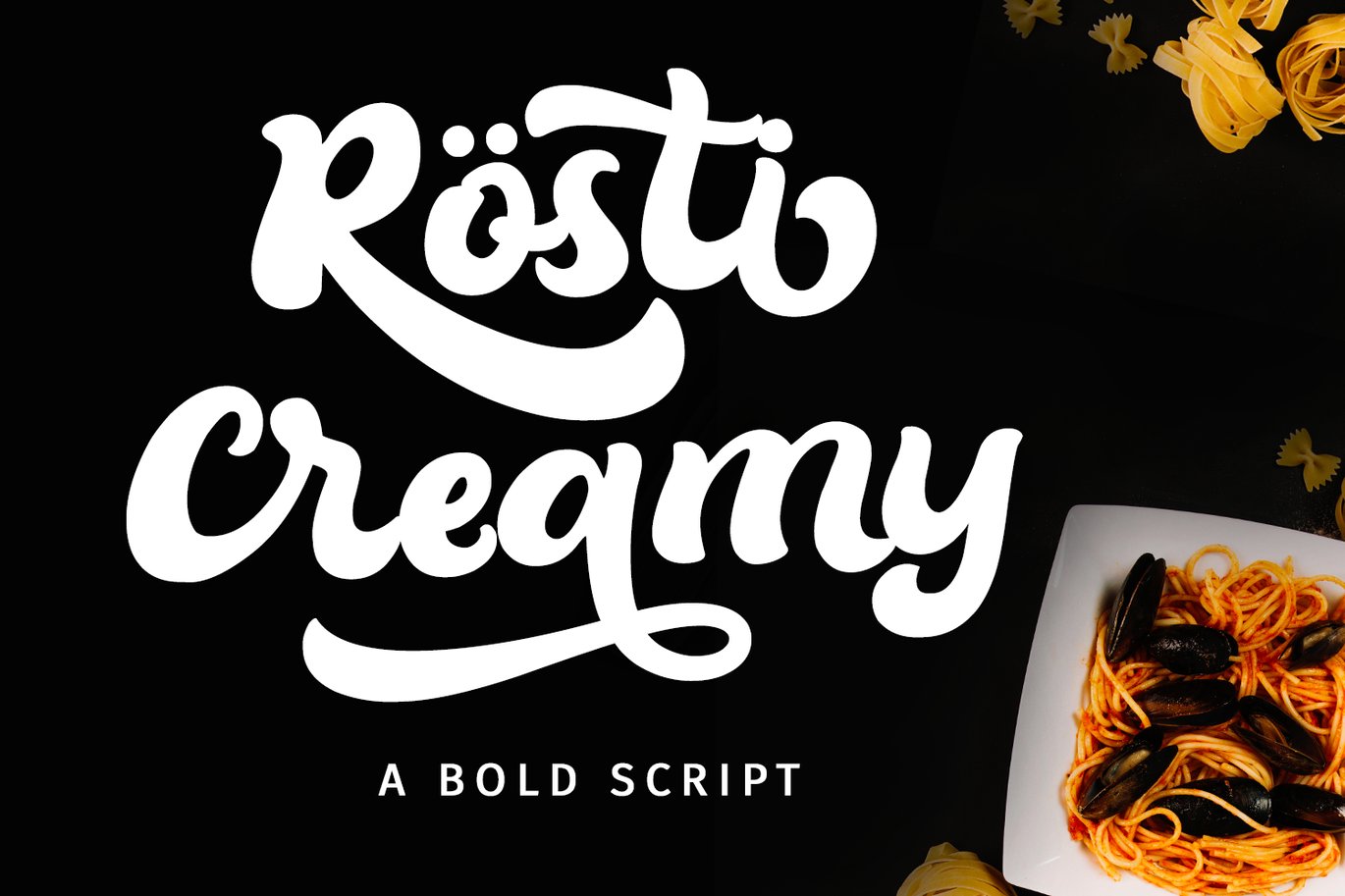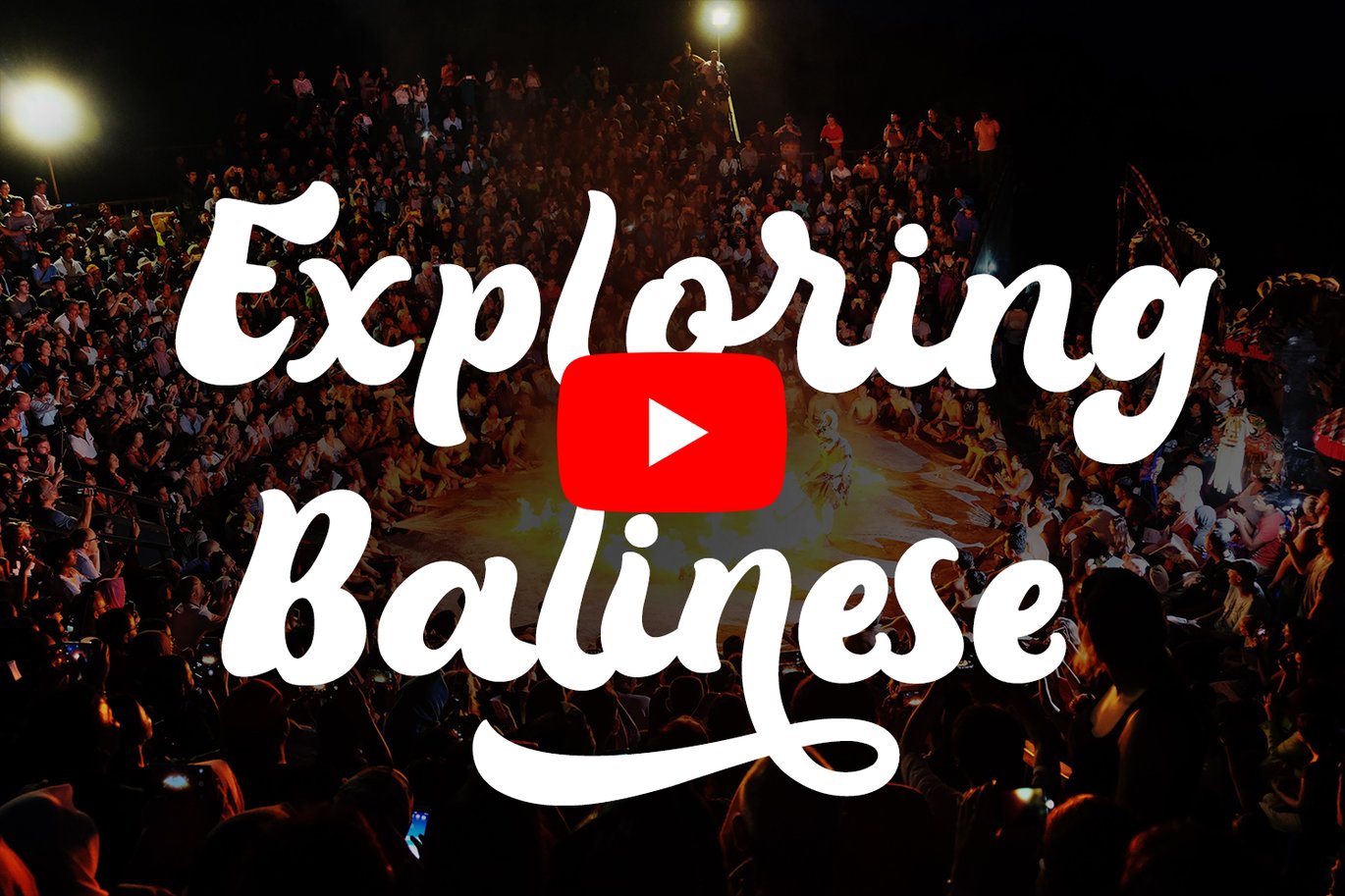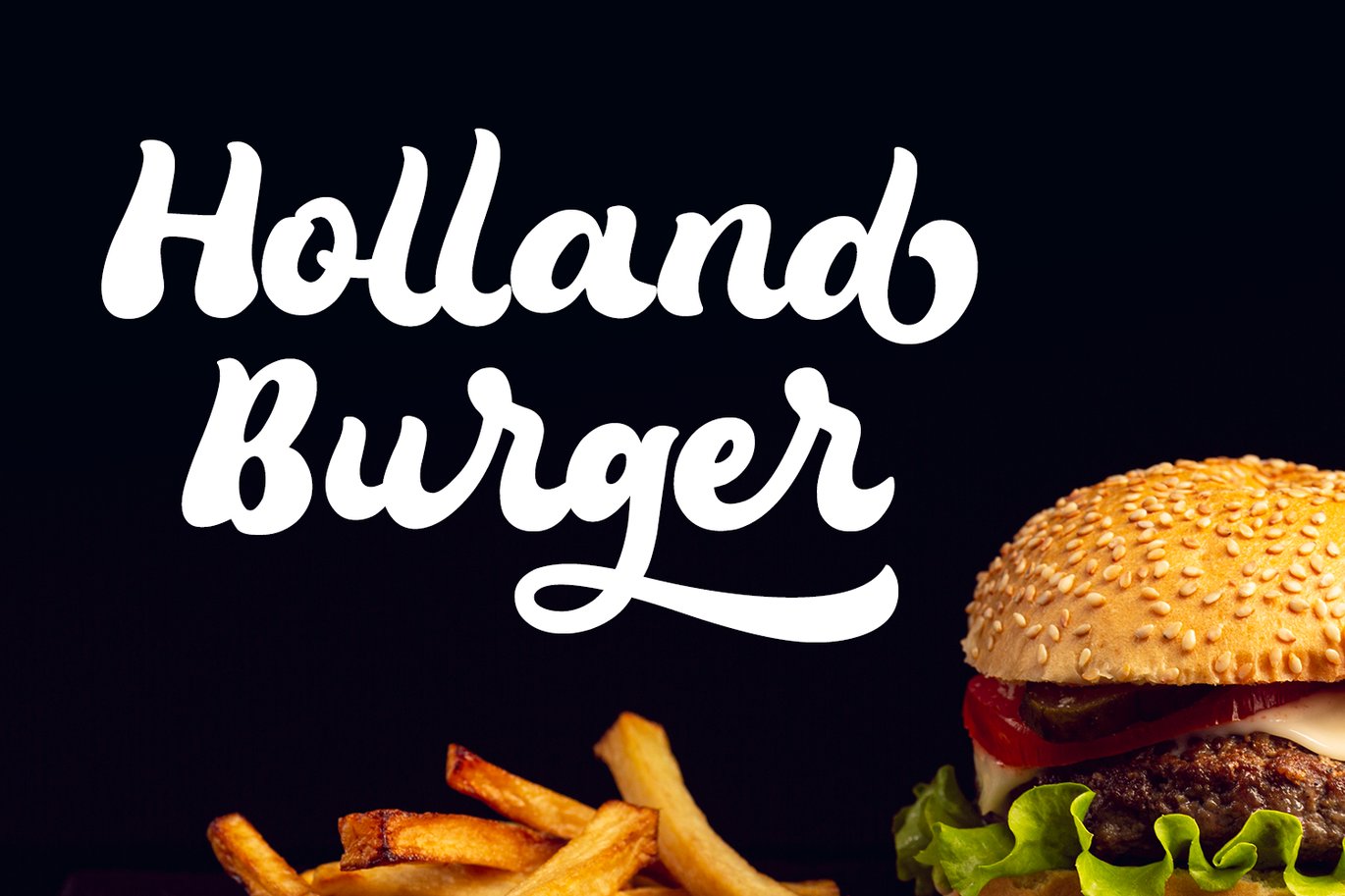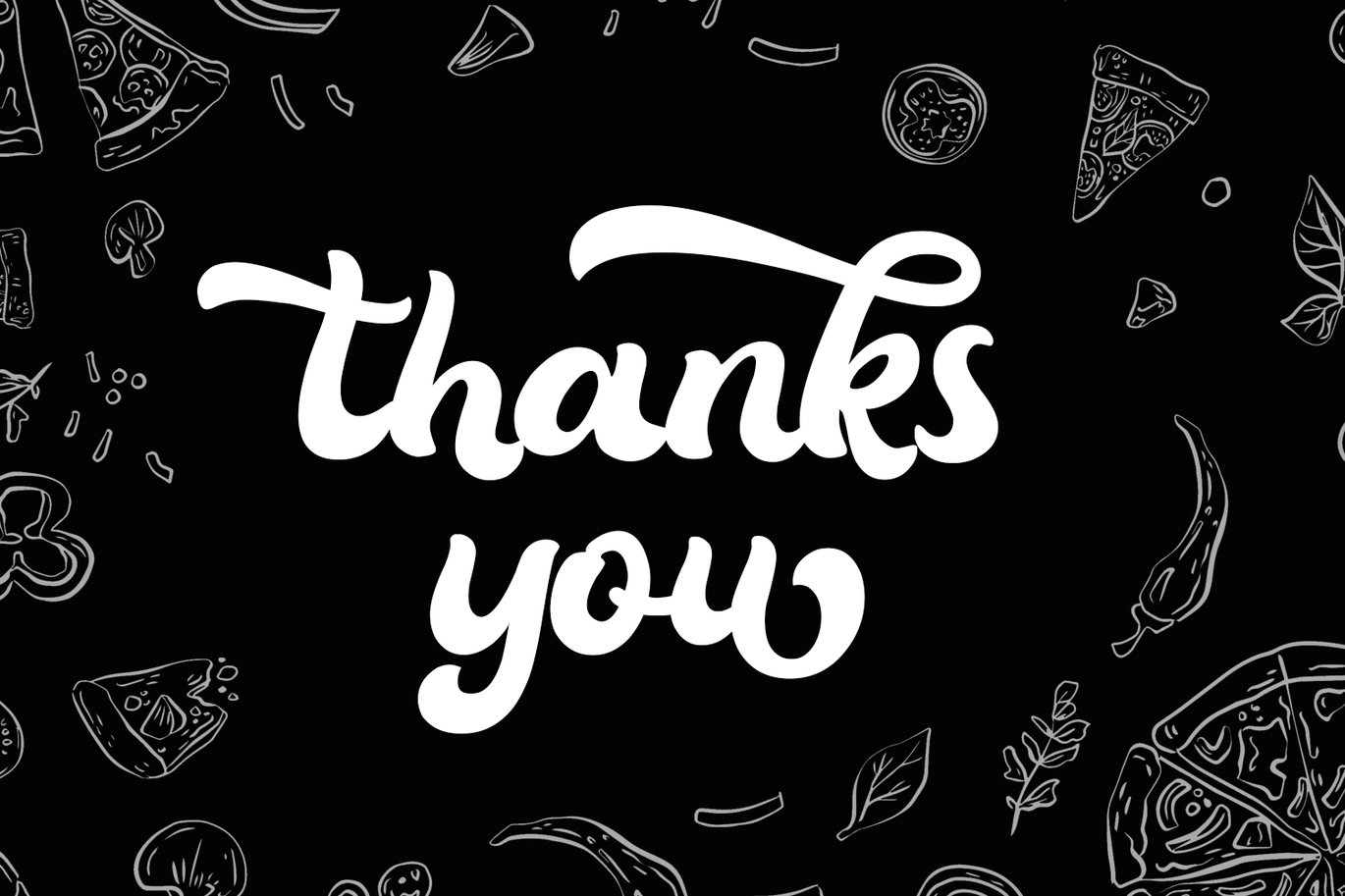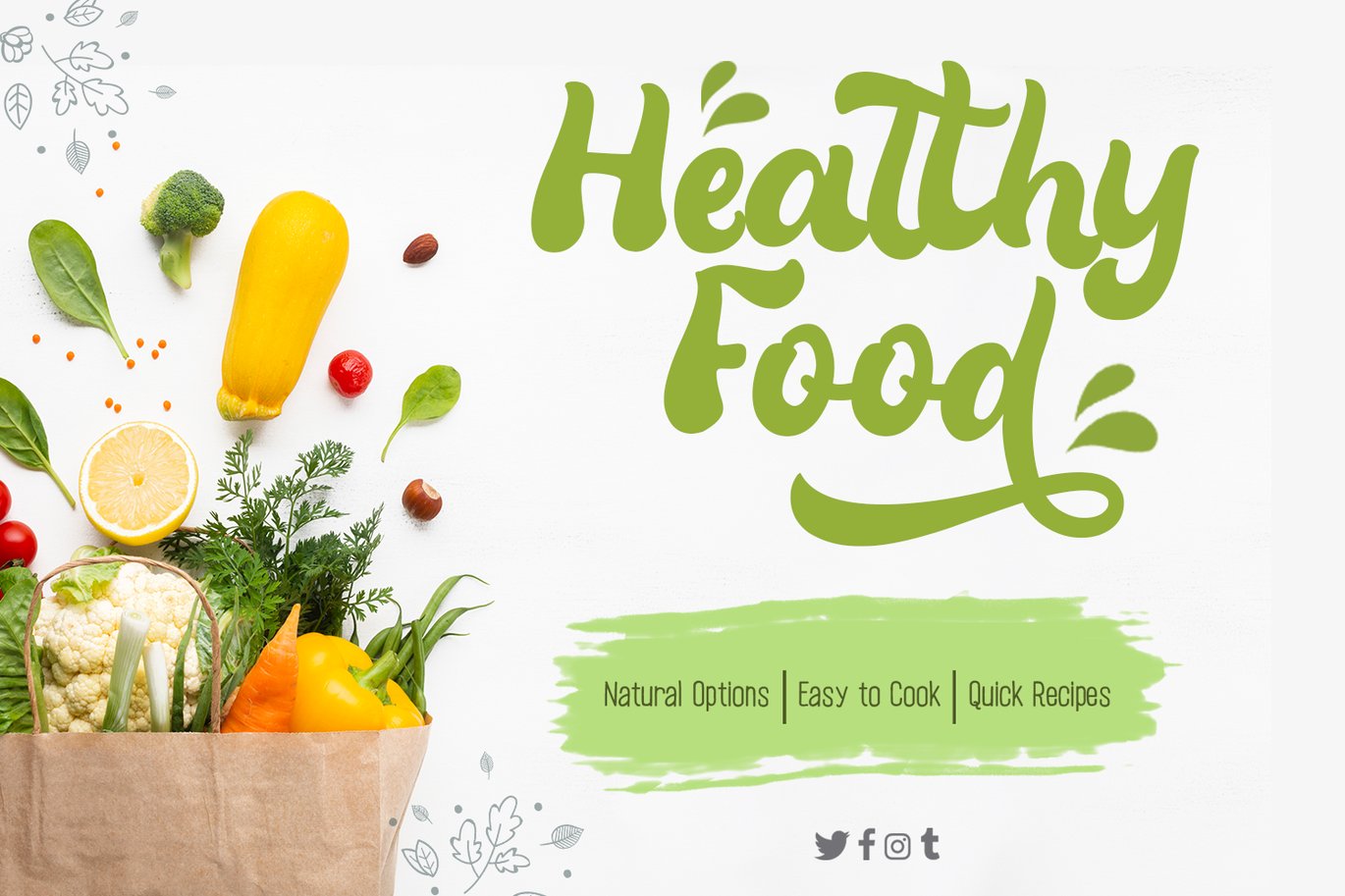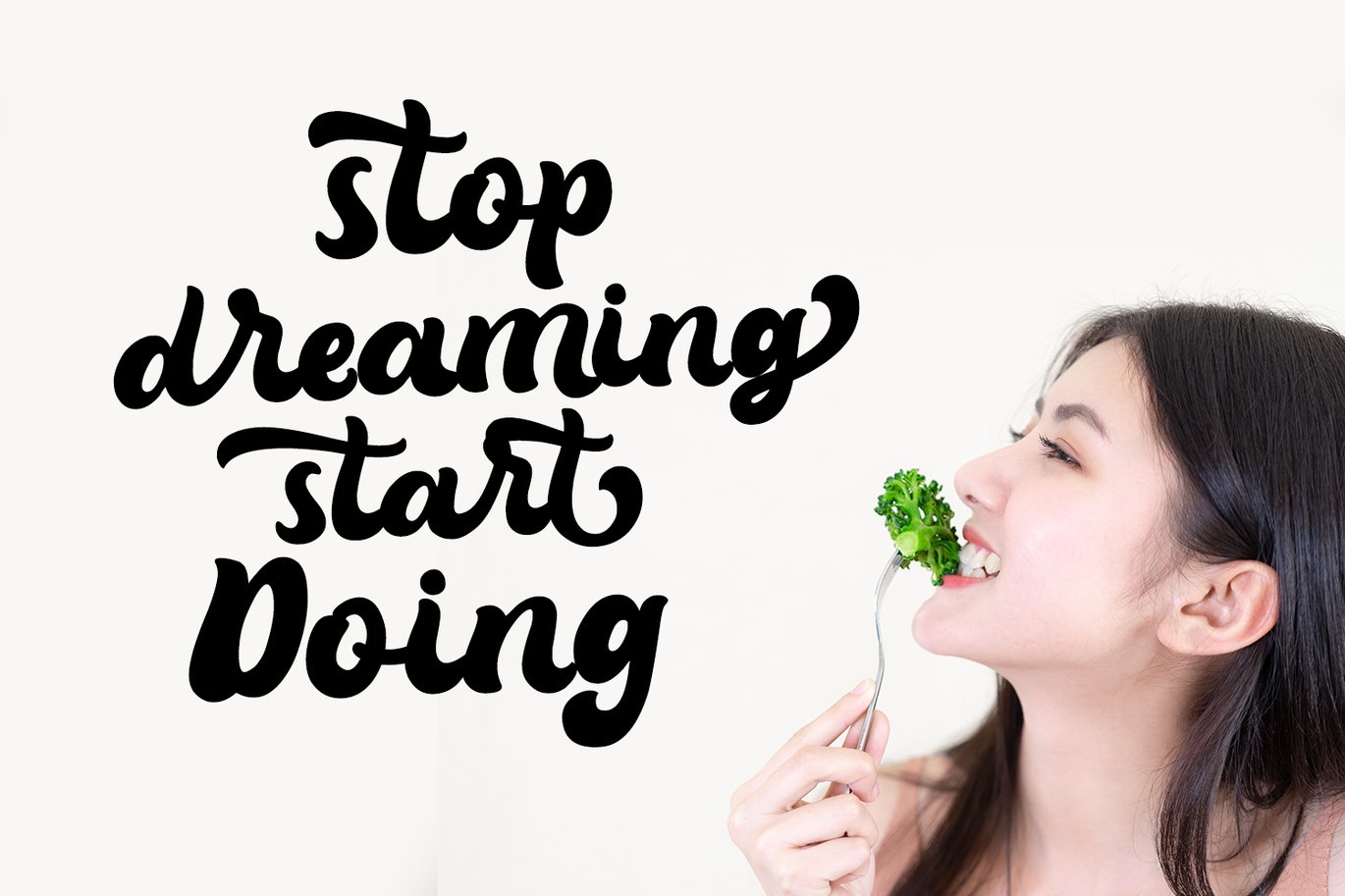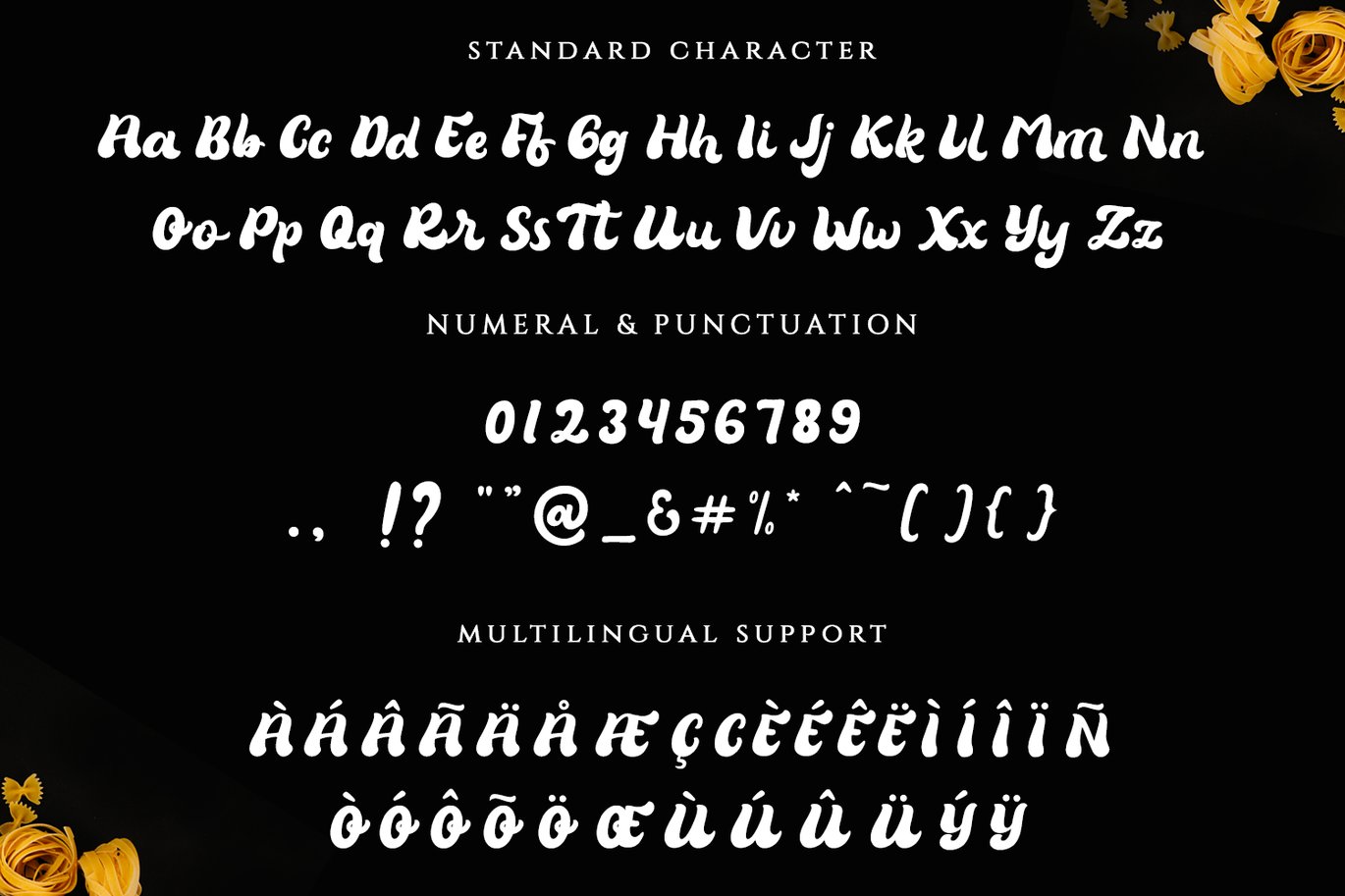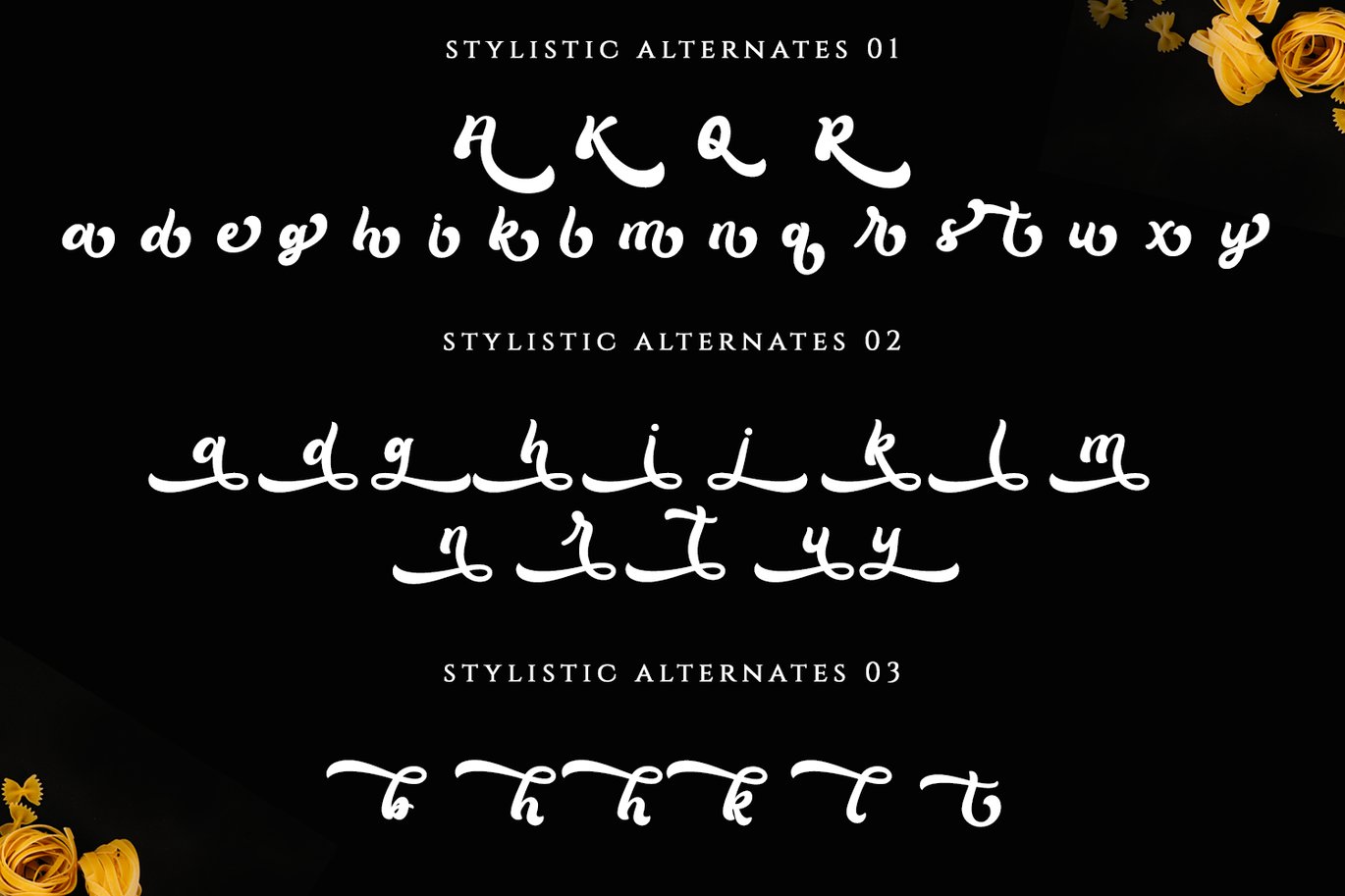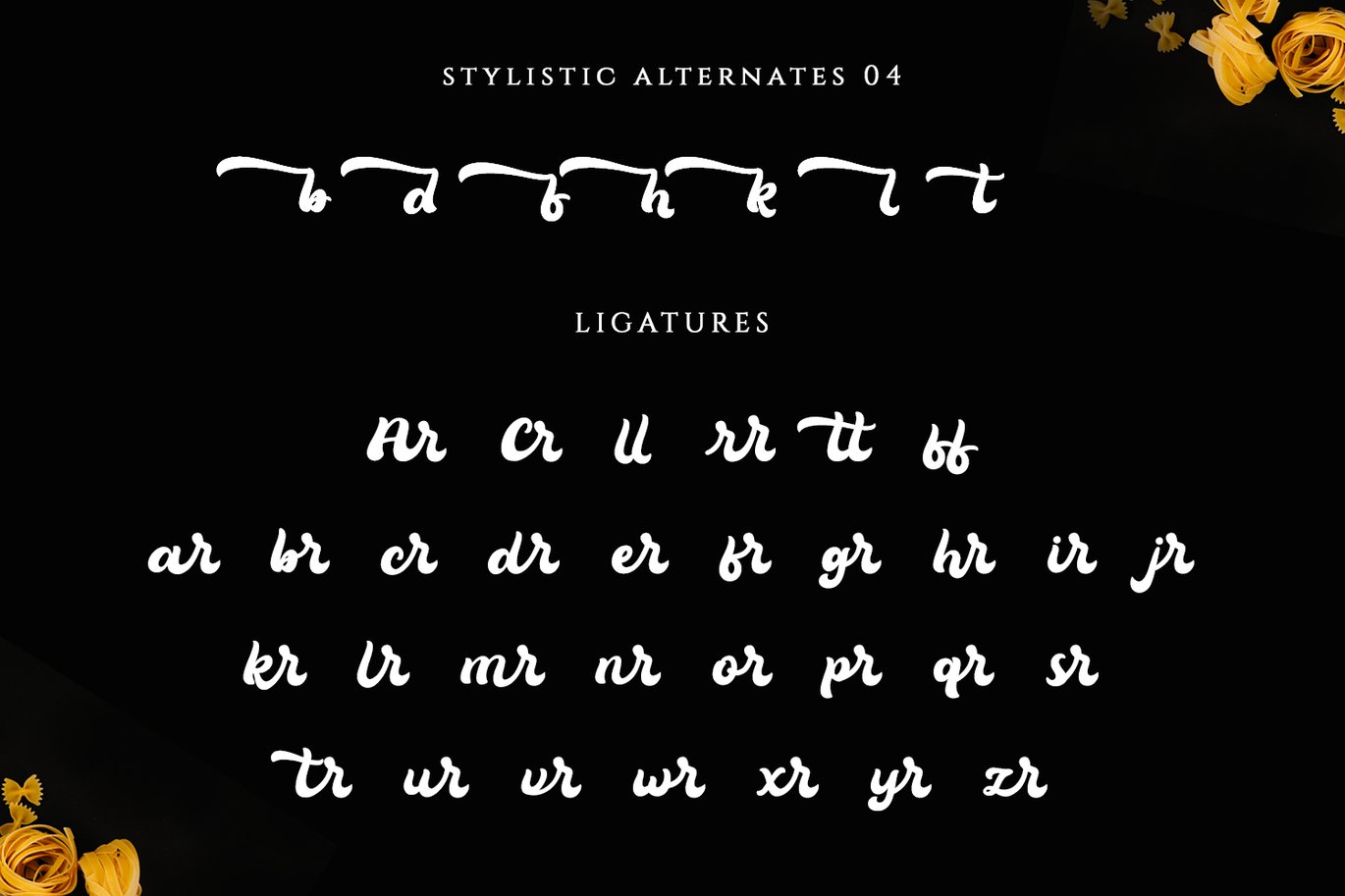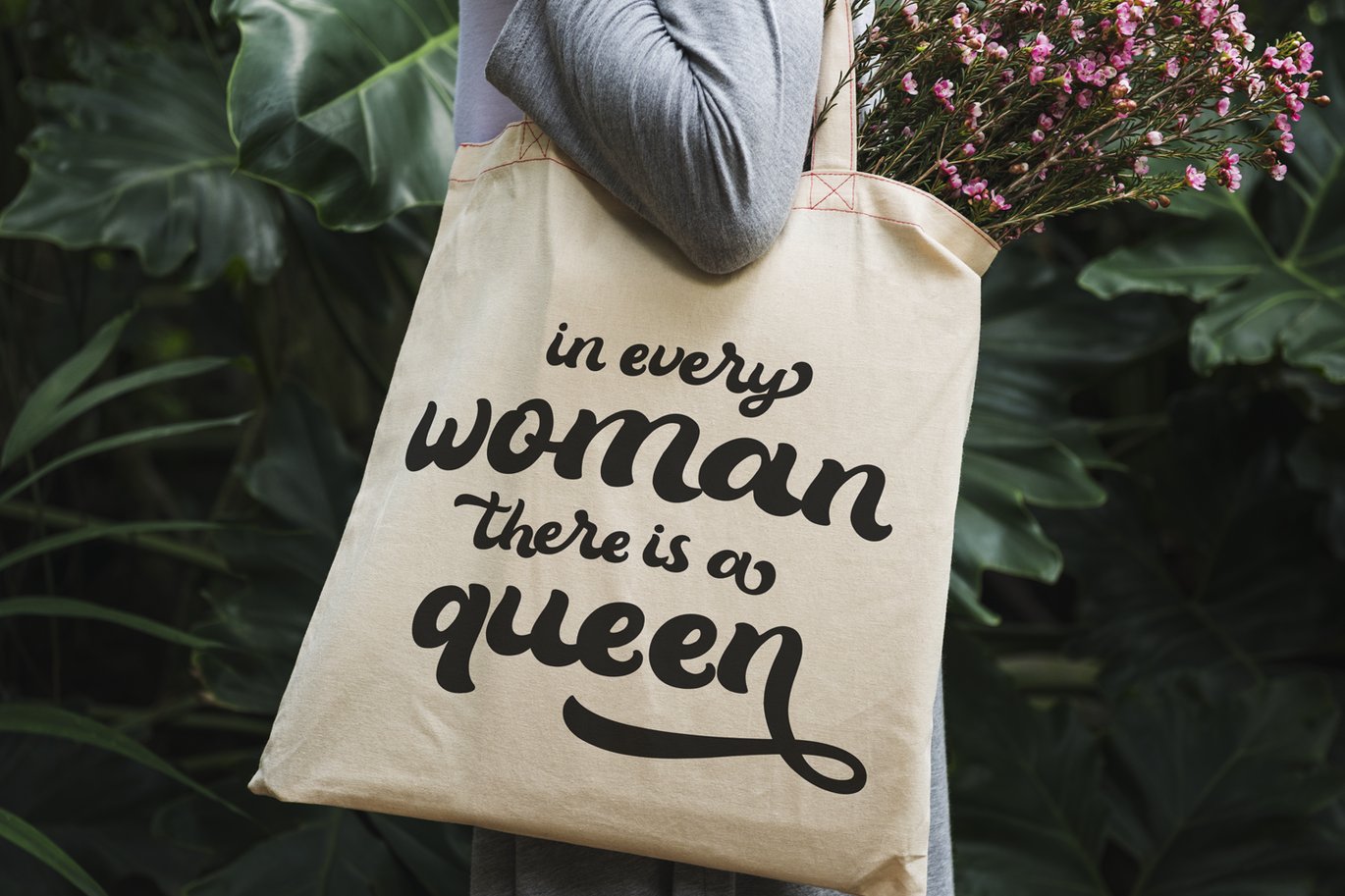
Rosti Creamy – Food Font
We proud presenting our new font.
It’s name Rösti Creamy
Rösti Creamy is a bold and flowing handwritten font, designed with the help of an outstanding brush pen.
It features a varying baseline, smooth lines, gorgeous glyphs and stunning alternates.
Fall in love with its incredibly versatile style and use it to create gorgeous wedding invitations,
beautiful stationary art, eye-catching social media posts, and much more!